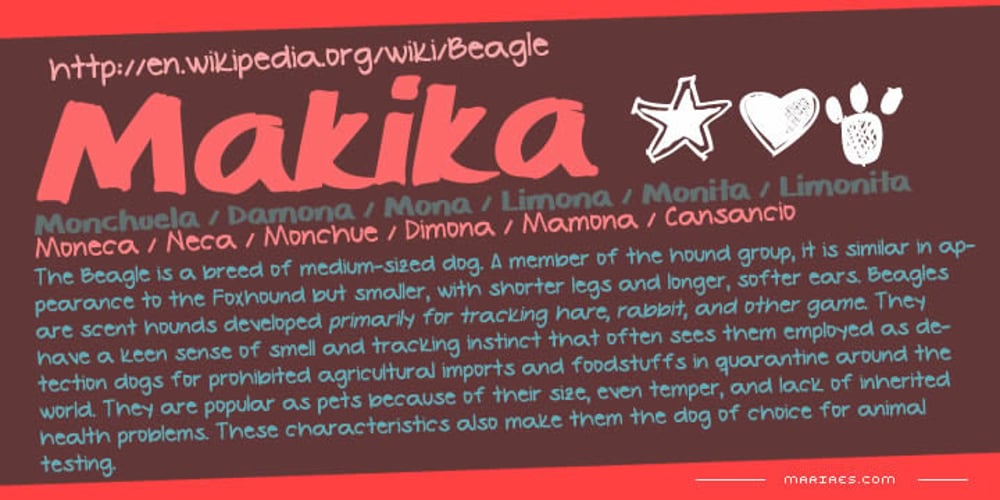
Makika Font Family was designed by Carlos Fabián Camargo Guerrero, María Angélica Estrada Cano and published by Mariaes. Makika contains 9 styles and family package options. Its manuscript and informal profile emphasizes its sweet and feminine style.